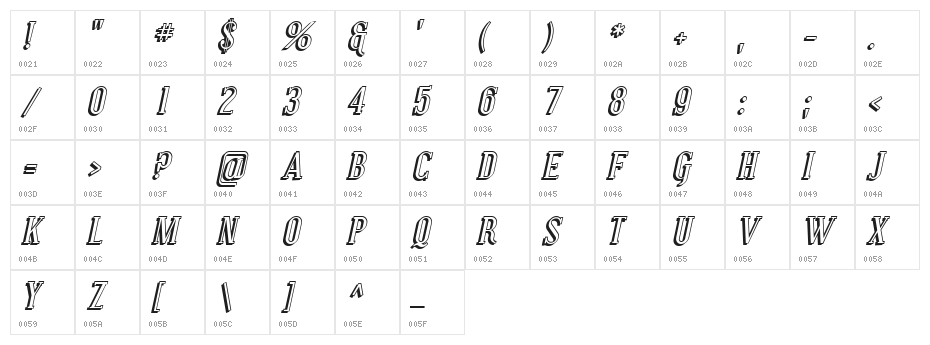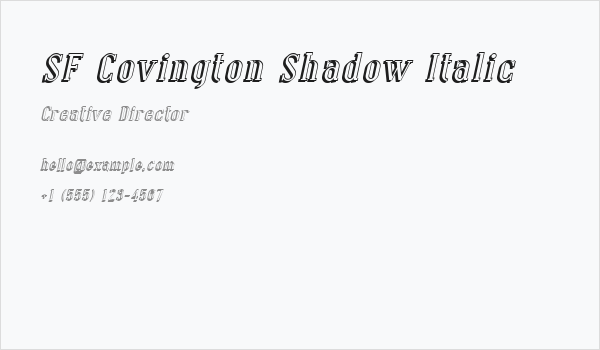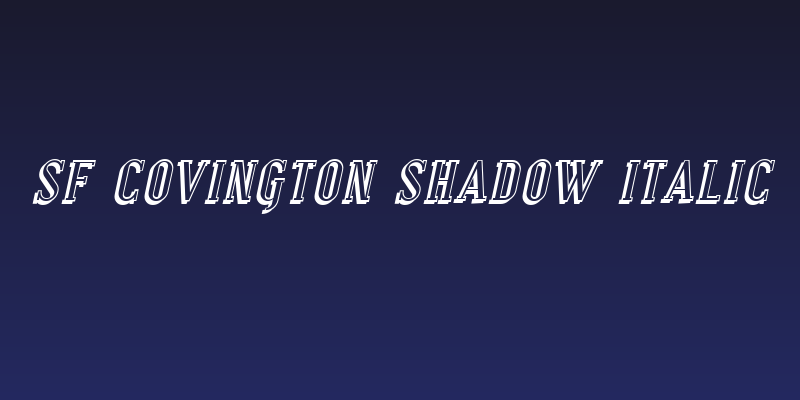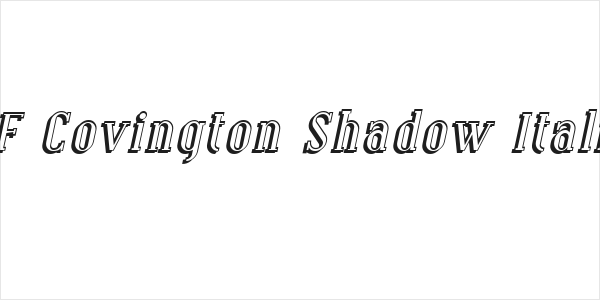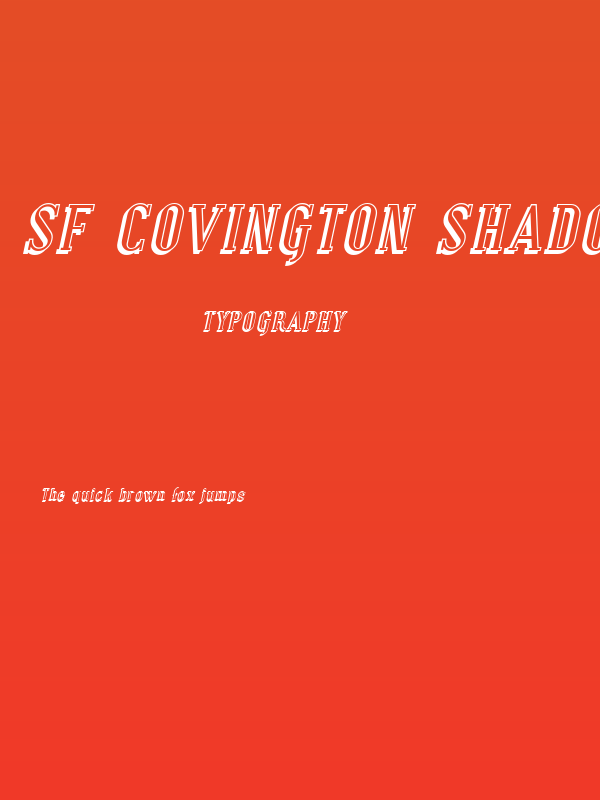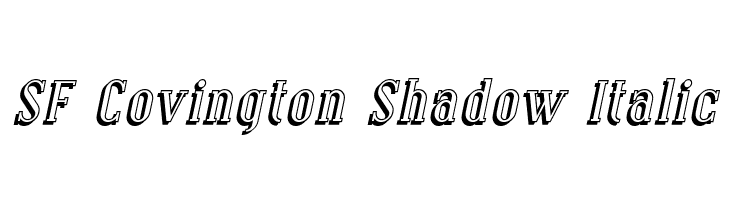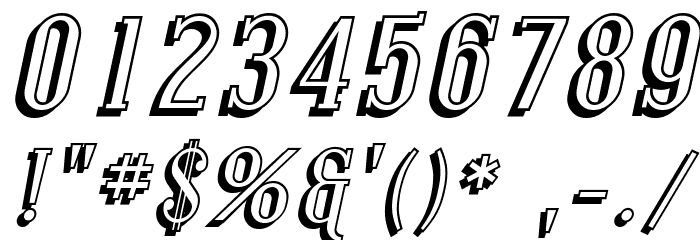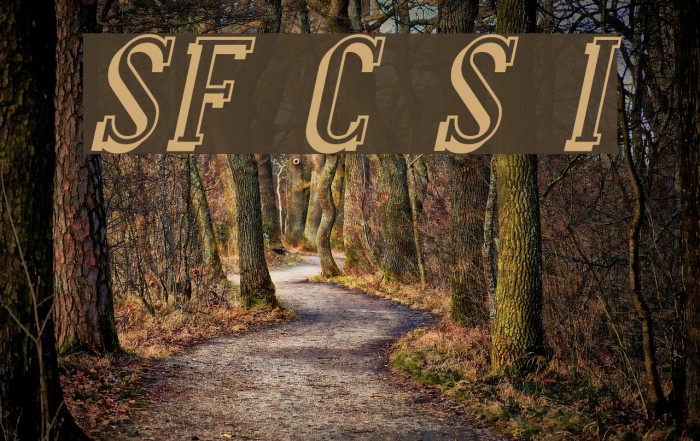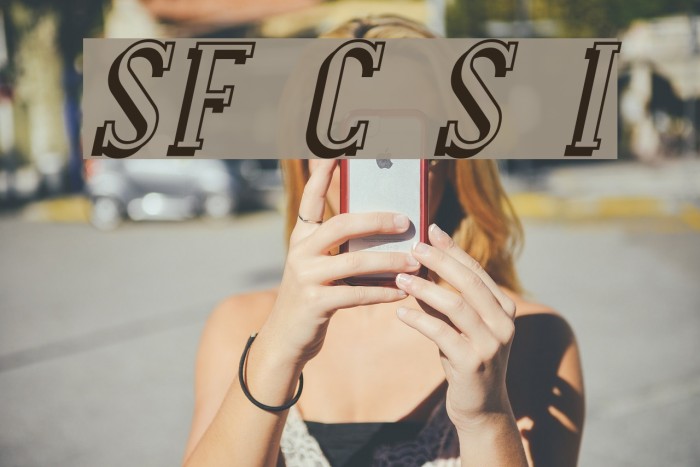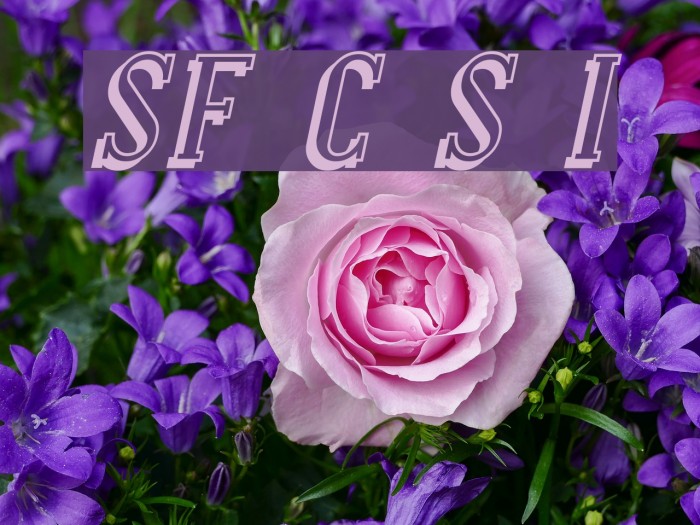
SF Covington Shadow Italic Font
This font features a bold, italicized style with a shadow effect that adds depth and dimension to the characters. The uppercase and lowercase letters are designed with a classic serif touch, giving them a traditional yet dynamic appearance. The numbers and special characters maintain the same stylistic elements, ensuring consistency across all glyphs. The shadow effect enhances the visual impact, making it suitable for eye-catching designs. The overall design is clean and legible, with a slight slant that adds movement and elegance.
| Proposed Projects | Ideal for headlines, posters, branding, and any design requiring a bold statement. |